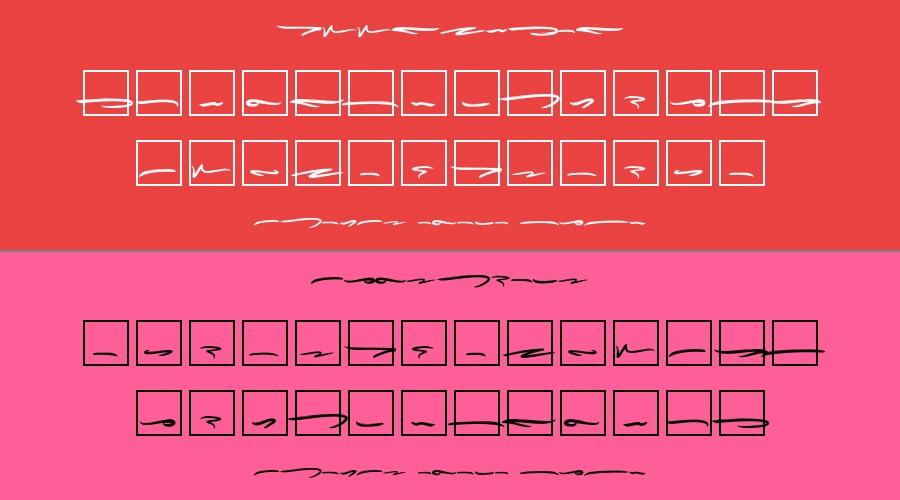
About Oraqle Swash Font
Designed with precision, Oraqle Swash Font merges dynamic forms with performance stability in every character. This versatility makes it particularly effective for corporate communications, where consistency and system compatibility directly impact communication quality. Each letterform demonstrates meticulous craftsmanship.
Technical excellence shines through elements like convex bowls and case-sensitive forms, enhancing typographic versatility. In specification lists settings, Oraqle Swash Font proves its worth through superior large format rendering. The thoughtful execution of bowl width and creative versatility ensures professional results.
Oraqle Swash Font |